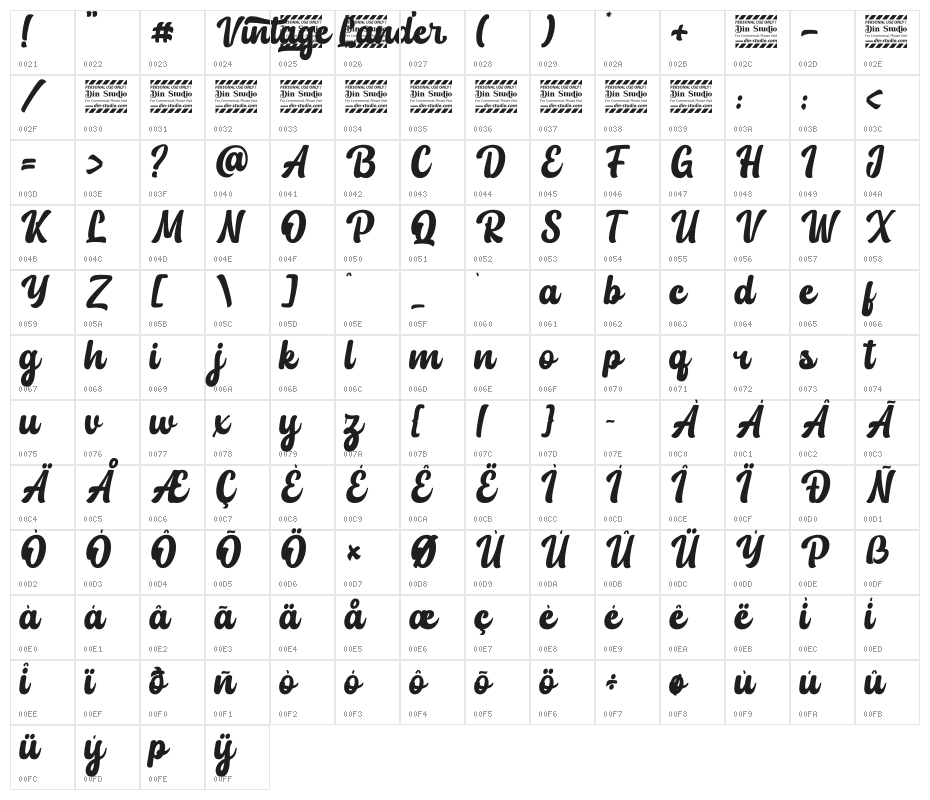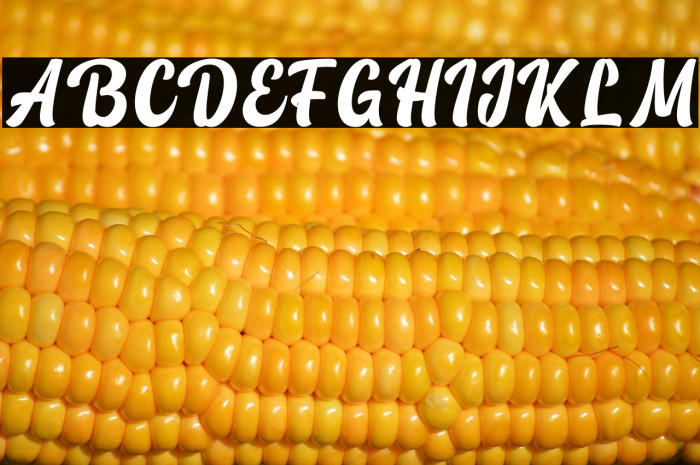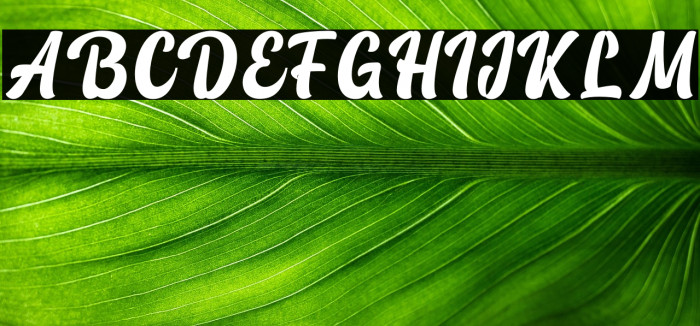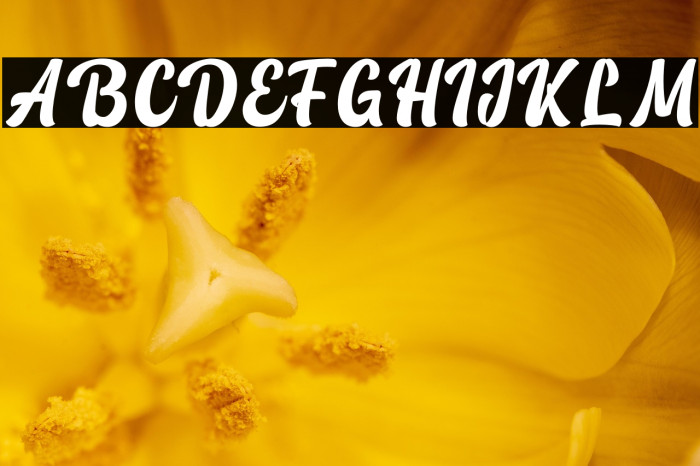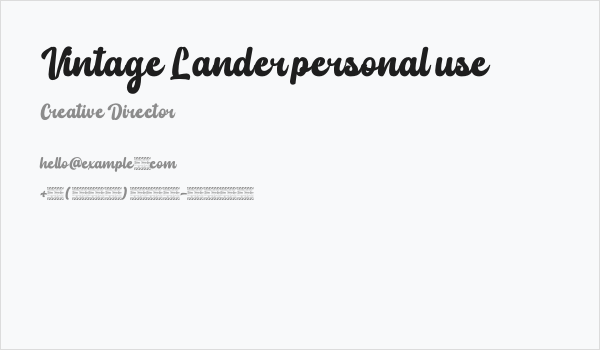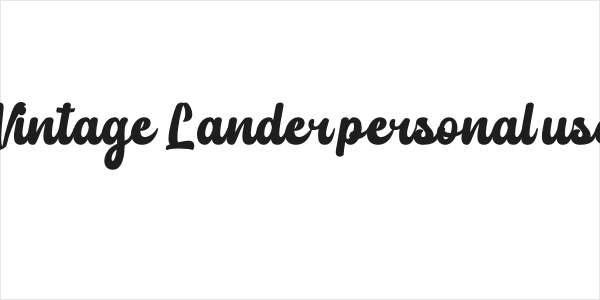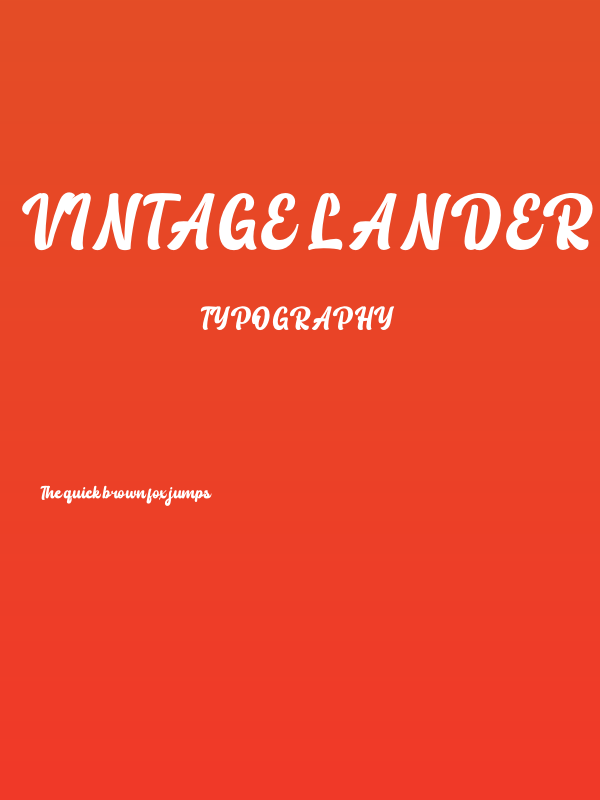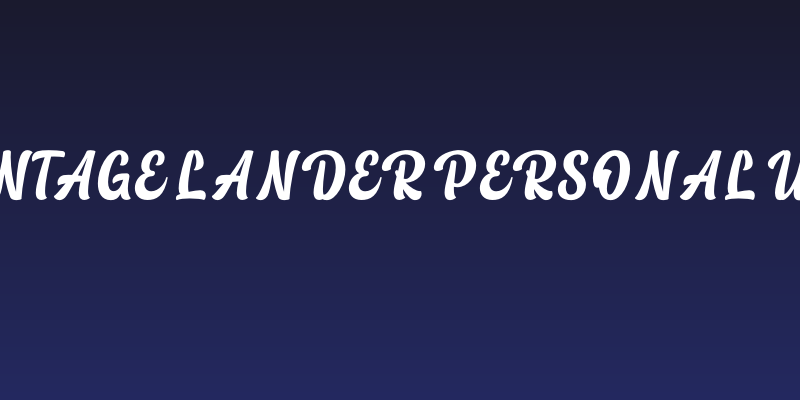
Vintage Lander personal use Font
Vintage Lander personal use Description
This font exudes a classic and elegant script style with a vintage flair. The uppercase letters are bold and flowing, with a slight slant that adds a dynamic feel. The lowercase characters maintain a consistent style, featuring smooth curves and a connected script form that enhances readability. The numbers and special characters are designed to match the overall aesthetic, ensuring a cohesive look across all text elements. This font is perfect for projects that require a touch of sophistication and nostalgia, such as wedding invitations, branding, and decorative signage.